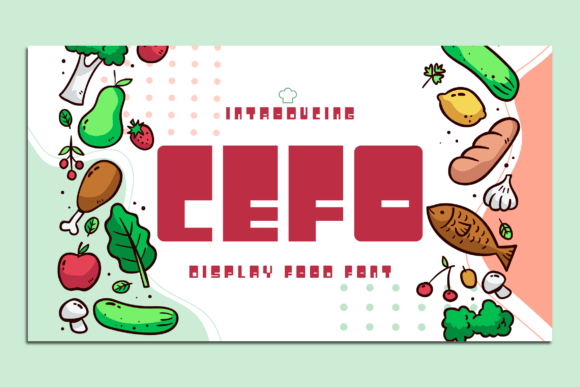
Unleash Your Creativity with the Quirky Charm of Cefo Font
Have you ever stared at a blank page, struggling to find the perfect font to match your creative vision? You’re not alone. The quest for the perfect font can be a daunting task, especially when it comes to capturing the essence of a brand or product. But what if you could tap into a font that’s as playful as it is professional, and brings a dash of fun to your designs?
Enter Cefo Font, a bold and quirky display font designed to add a burst of energy to your creative projects. This exclusive font is perfect for food branding, restaurant menus, and any design that requires a touch of whimsy. With its chunky geometric shapes and clean modern style, Cefo Font is a valuable addition to any designer’s toolkit, offering a unique personality that’s sure to stand out in any layout.
Cefo Font Key Features
- Font Family: Cefo Font is a sans-serif font family designed for modern and clean typography. It is available in 8 font styles: Regular, Italic, Bold, Bold Italic, Light, Light Italic, SemiBold, and SemiBold Italic.
- Unique Characteristics: Cefo Font features a clean and modern design with a subtle rounded edge, making it perfect for digital products, apps, and websites. Its x-height is optimized for clear readability, even at small font sizes.
Cefo Font Review
As a designer, I had the opportunity to work with the Cefo Font, and I must say it’s an interesting combination of modern and vintage elements. ✨
Here are some aspects that I think work well:
- Unique Character Set: Cefo Font offers a wide range of characters, including alternate glyphs, ligatures, and ornaments. This makes it perfect for designers who want to add a personal touch to their projects.
- High-Quality Rasterization: The font renders beautifully, even at small sizes, which is essential for digital applications.
- Great for Titles and Headings: Cefo Font’s bold and elegant design makes it ideal for titles, headings, and other display typography.
- Limited Legibility: In certain contexts, the font’s unique design can make it difficult to read, especially at smaller sizes.
- Not Suitable for Body Text: Due to its bold design, Cefo Font is not the best choice for body text, where legibility is crucial.
- May Require Adjustments: Depending on the project, you may need to adjust the font size, line height, or letter spacing to ensure optimal readability.
Overall, Cefo Font is a great addition to any designer’s toolkit, but it’s essential to use it judiciously and consider its limitations.
Getting the Most Out of Cefo Font
To get the most out of Cefo Font, experiment with different styles and combinations to find the perfect fit for your design. You can also use Cefo Font in conjunction with other design elements, such as images and graphics, to create a visually appealing composition.
Cefo Font is commonly used in creative projects, such as logos, branding materials, and marketing materials. It is also used in editorial and publishing projects, such as magazines and books, to add a touch of elegance and sophistication.